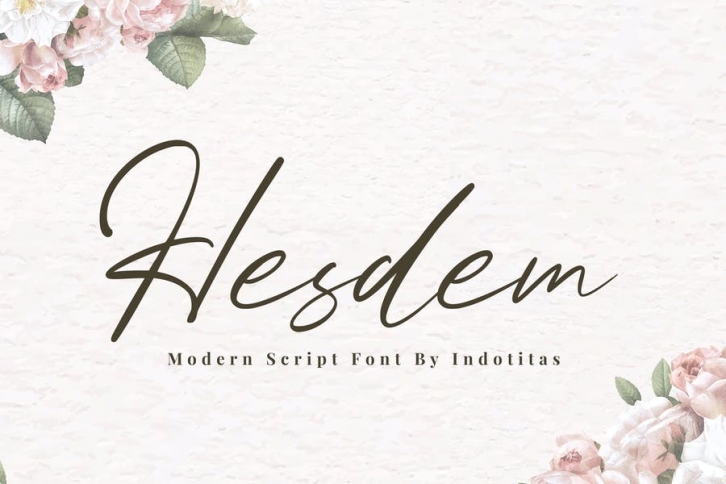
Introducing to The Hesdem Font
Hesdem is attractive handwritten script, ideal for use in projects that need an organic and natural style. This font is great for logo, logotype, branding,wedding, fashion, label, book cover, t-shirt, instagram post, and other, and can add an elegant and classy look to your work.
- Basic Latin A-Z and a-z, Numbers, & Symbols